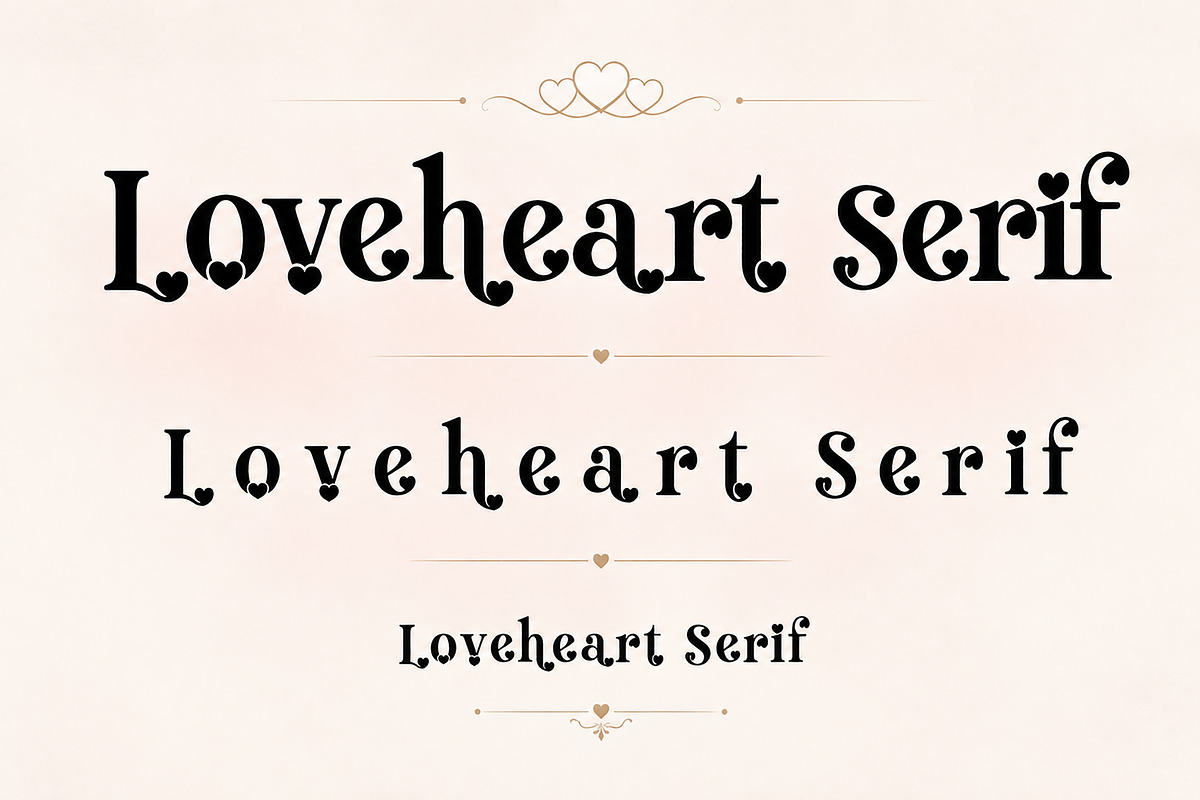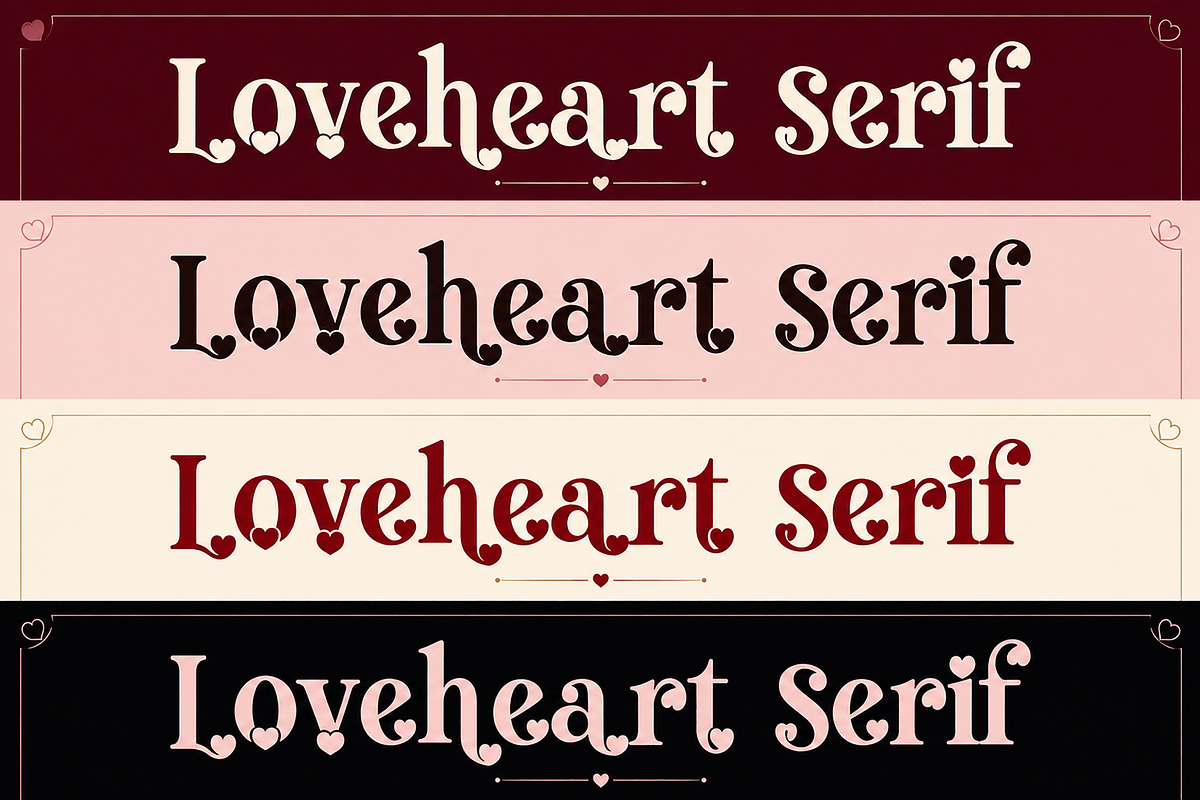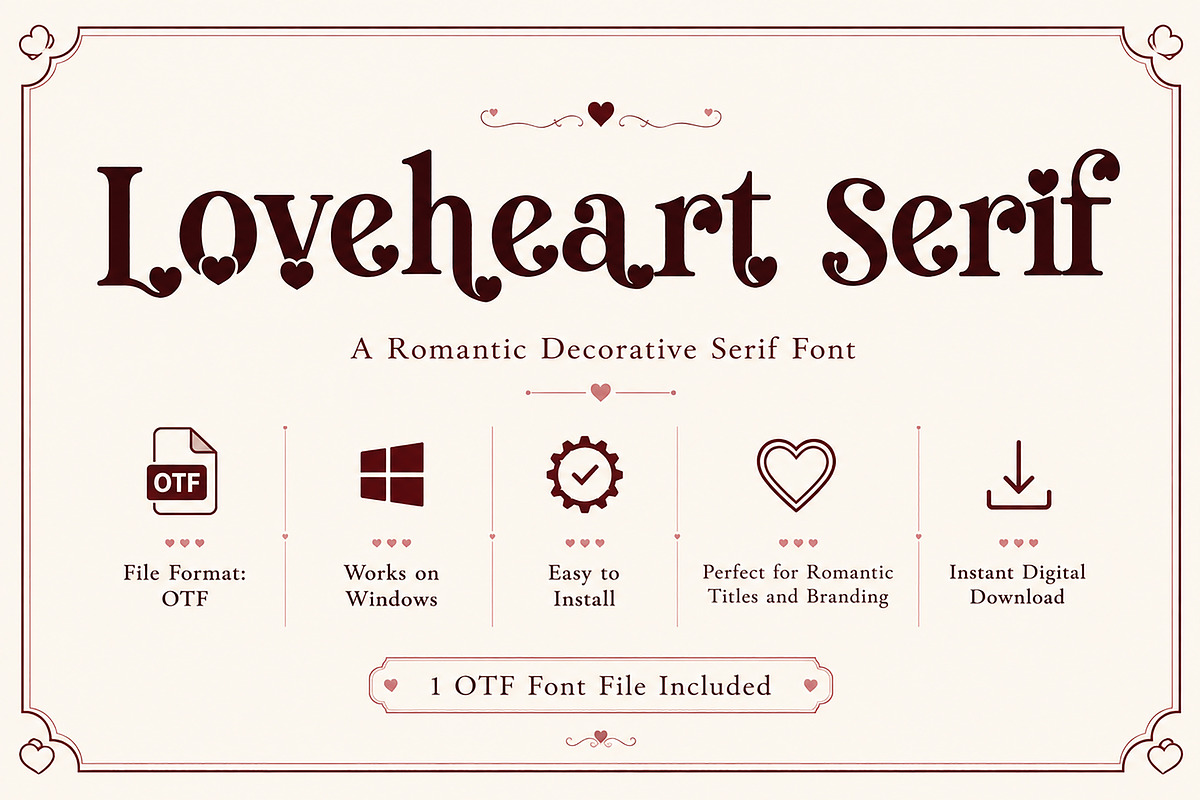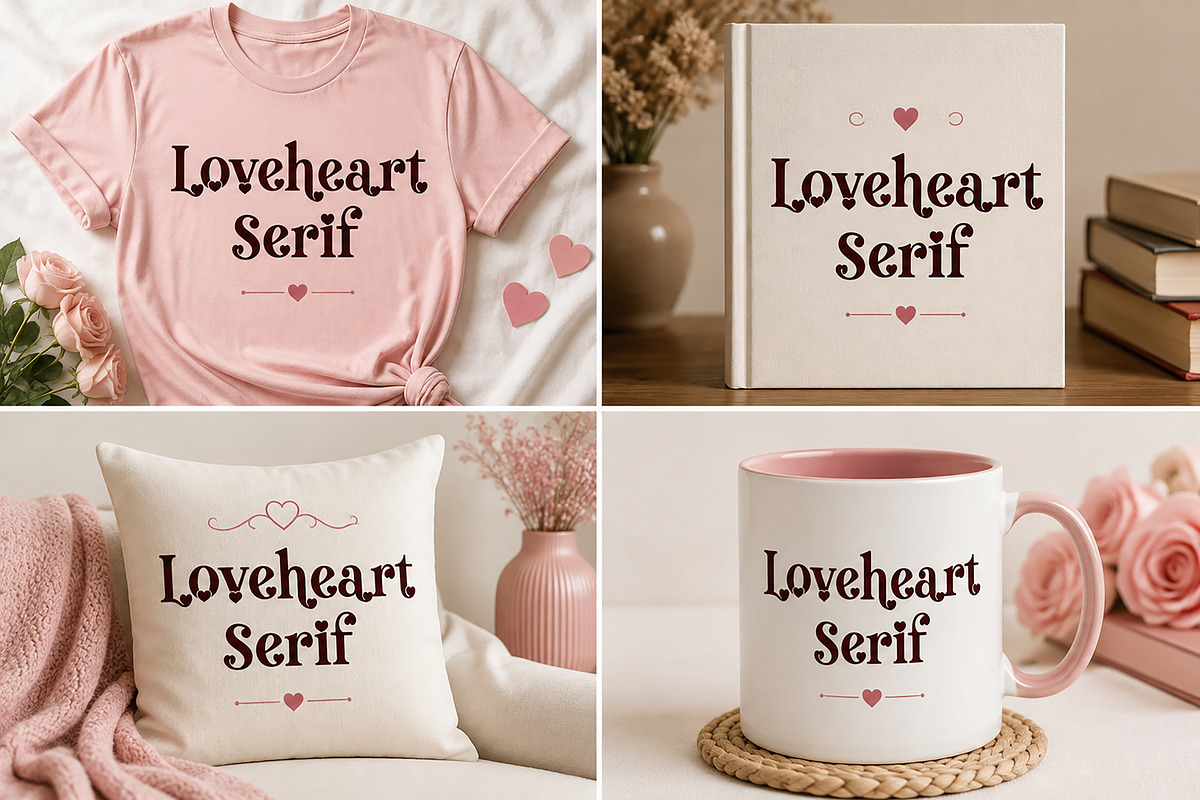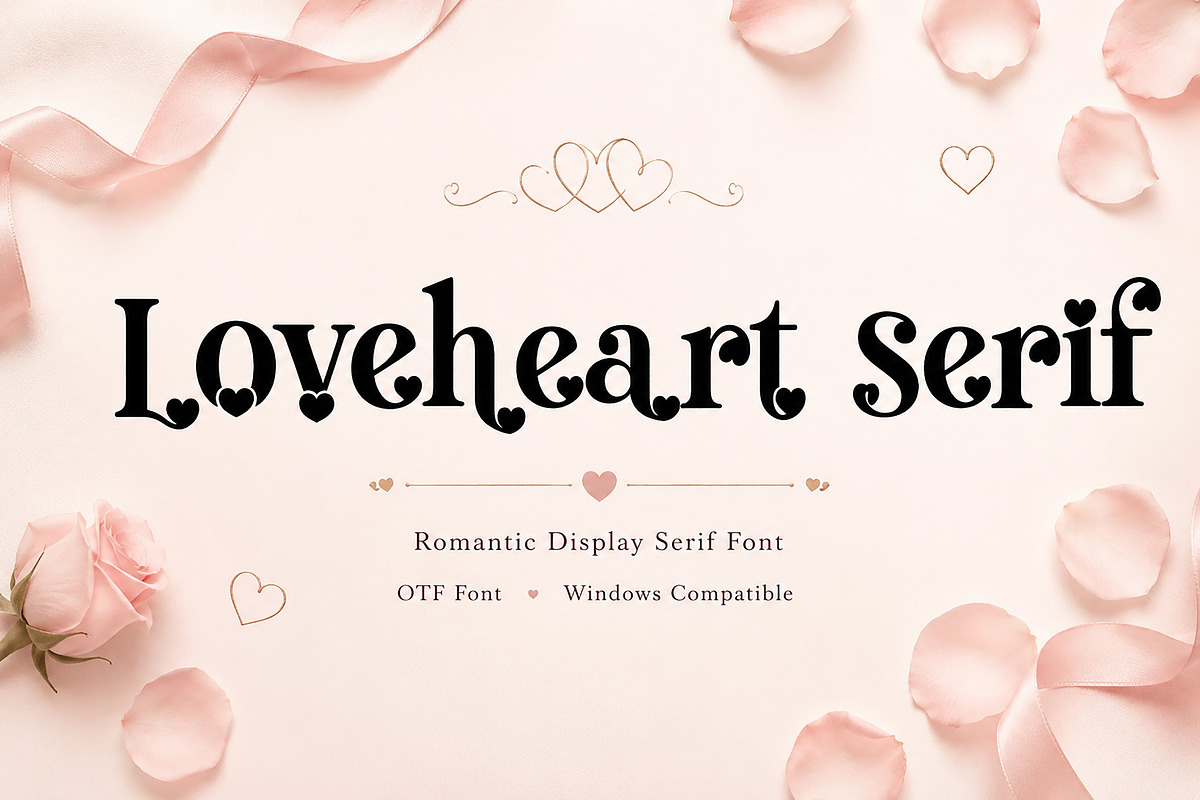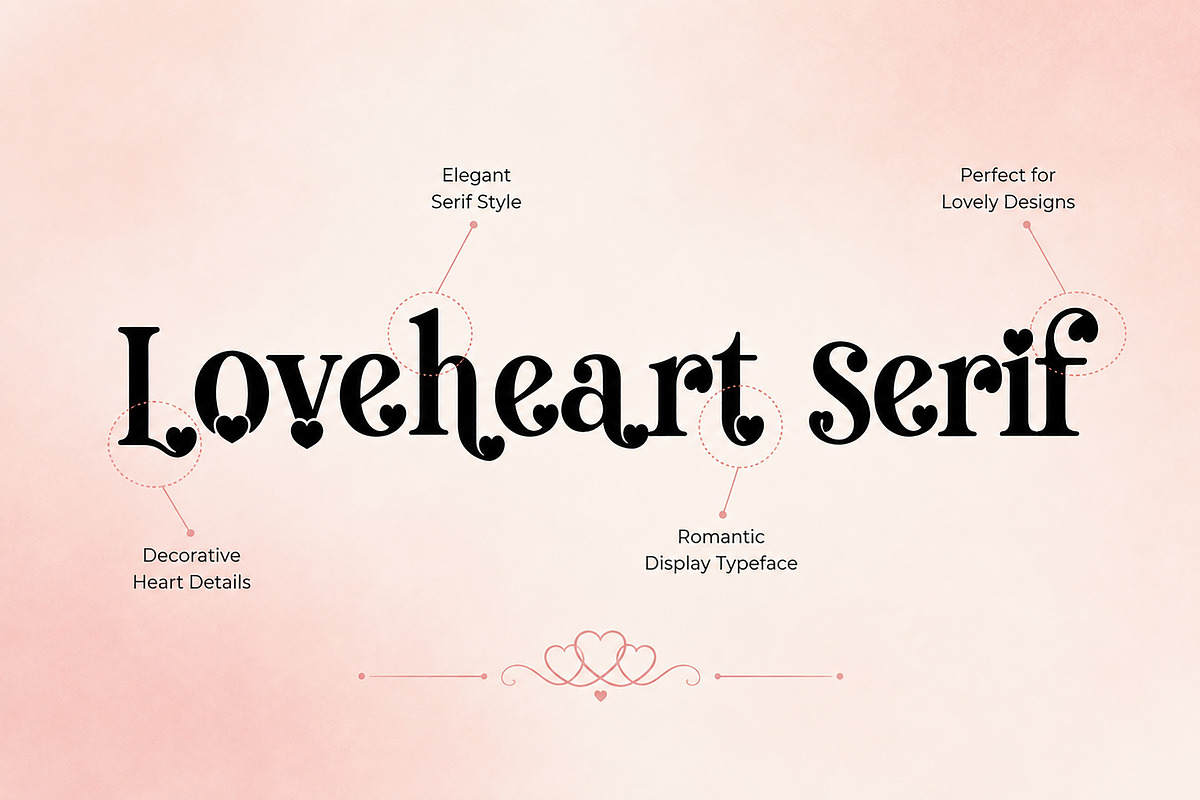
Loveheart Serif
Loveheart Serif is a charming decorative serif font designed to add a romantic and elegant touch to your creative projects. Featuring beautiful heart details integrated into selected characters, this typeface is perfect for designs that celebrate love, beauty, and special occasions. Whether you're creating wedding stationery, Valentine's Day graphics, feminine branding, logos, packaging, social media content, or stylish headlines, Loveheart Serif brings a unique and memorable personality to every design.
Its decorative style makes it ideal for eye-catching titles while remaining clean and easy to read. The carefully crafted serif letterforms combined with delicate heart accents create a premium, playful, and sophisticated look that stands out across both print and digital projects.
Wedding Invitations
Valentine's Day Designs
Branding
Packaging
Greeting Cards
T-Shirt Designs
Mug Designs
Pillow Designs
Stickers
Posters
Headlines
Boutique Branding
Beauty & Fashion Projects
Cricut & Craft Projects
Printable Designs
Digital Products
Decorative Typography